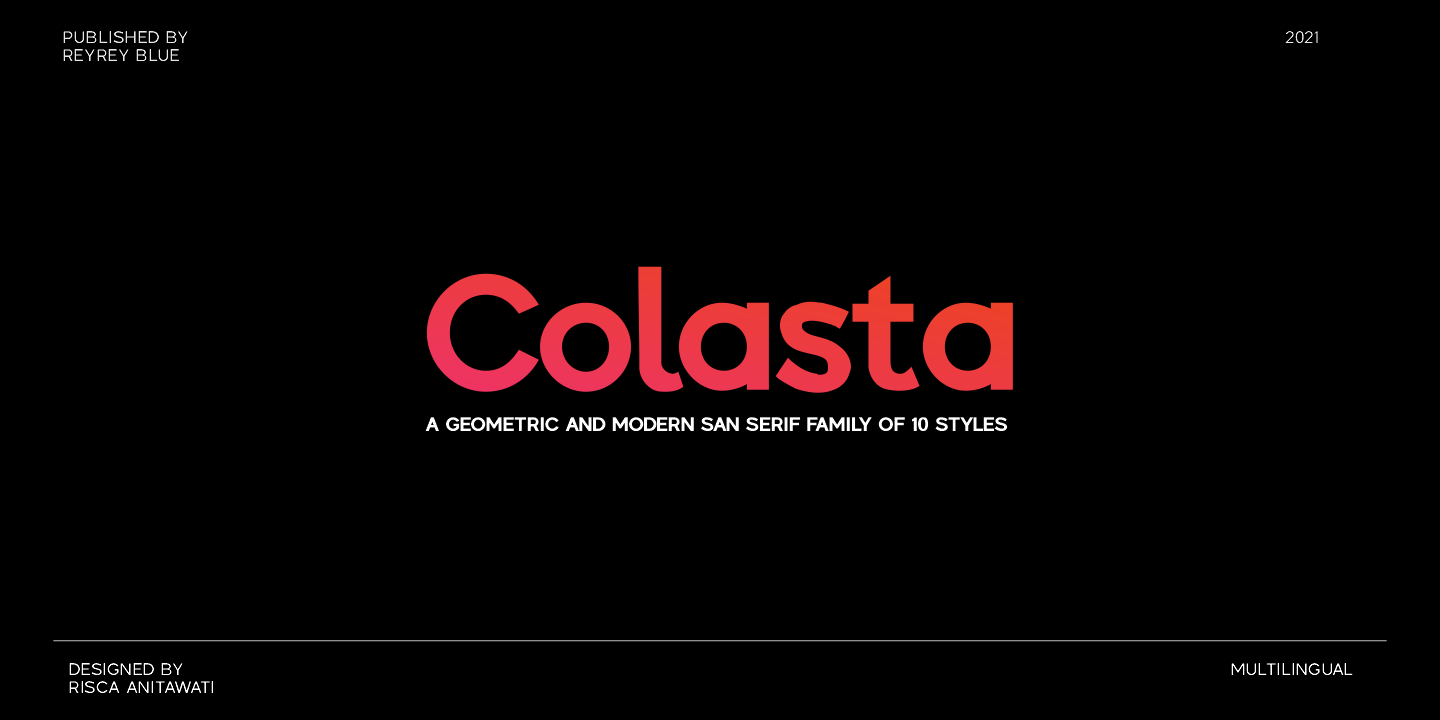
This vibrant typeface excels in beverage brand identities, summer festival posters, refreshing product packaging, tropical resort signage, juice bar logos, beach party invitations, recreational sports materials, and energetic lifestyle communications. Its refreshing appeal makes it perfect for projects emphasizing vitality, refreshment, and youthful energy.
Colasta Font creates excitement through its effervescent personality that bubbles with the joy of refreshing experiences and carefree moments. The font's crisp lines and sparkling letterforms create an atmosphere of pure refreshment that resonates with audiences seeking revitalization and energizing experiences. Its carefully carbonated character variations deliver thirst-quenching readability while maintaining distinctive fizzy personality that reflects the invigorating power of refreshment and the simple pleasure of satisfaction.
The Colasta Font family features multiple refreshment-themed variations including regular, light, bold, condensed, and bubble styles. Each family member maintains the distinctive effervescent aesthetic while offering different levels of energy for various beverage and lifestyle applications. This refreshing collection allows designers to create invigorating compositions that capture the full spectrum of revitalizing experiences from gentle refreshment to explosive energy bursts.